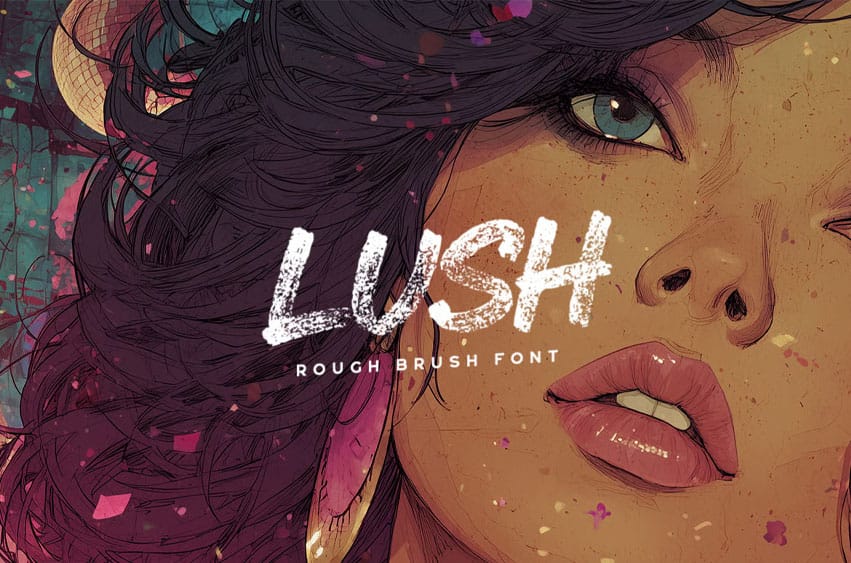
Lush Font is a brush font with strong charcoal textures.
This font is well-suited for a variety of contexts, such as print design, promotional materials, or magazine layouts.